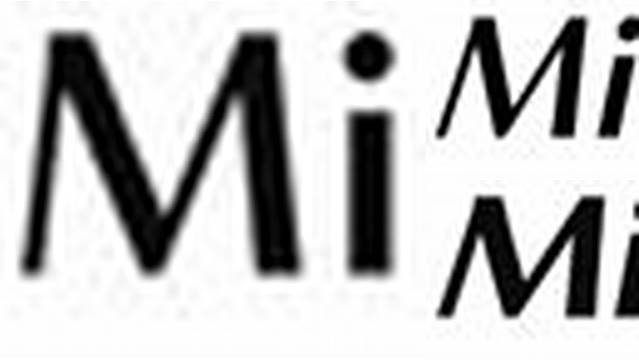
Minerva Modern Bold Font: Free Download Guide
Hey guys! Are you on the hunt for a font that screams modernity and boldness? Well, look no further! Today, we're diving deep into the world of the Minerva Modern Bold font. This font has become a favorite among designers and creatives for its sleek lines, strong presence, and overall versatility. In this article, we'll explore everything you need to know about Minerva Modern Bold, including where you can find it for free download, its key features, and how you can best utilize it in your projects. So, buckle up and let’s get started on this font-tastic journey! Minerva Modern Bold is not just another typeface; it's a statement. Its distinctive character makes it an excellent choice for various design applications, from branding and advertising to editorial design and web typography. The font's clean, geometric forms exude a sense of sophistication and confidence, making it perfect for projects that require a contemporary touch. Whether you're designing a logo, crafting a poster, or revamping your website, Minerva Modern Bold can add a touch of elegance and impact.
The Minerva Modern Bold font family is designed with precision and attention to detail, ensuring readability and visual appeal across different sizes and mediums. Its bold weight commands attention, making it ideal for headlines and titles. However, the font's versatility extends beyond just headings; it also works beautifully in shorter body text, providing a harmonious balance between boldness and clarity. One of the reasons Minerva Modern Bold is so popular is its ability to convey a sense of modernity without sacrificing legibility. Many modern fonts lean too heavily on abstract designs, which can make them difficult to read. Minerva Modern Bold strikes the perfect balance, offering a contemporary aesthetic while maintaining excellent readability. This makes it a practical choice for a wide range of projects, ensuring your message is not only stylish but also clear and accessible. Plus, its open-source availability means you can use it in both personal and commercial projects without worrying about licensing fees, making it an incredible resource for designers of all levels.
Moreover, the Minerva Modern Bold font boasts a comprehensive character set, including uppercase and lowercase letters, numerals, punctuation marks, and a variety of symbols. This extensive range allows for creative flexibility and ensures you have all the tools you need to bring your design vision to life. Whether you’re working on a multilingual project or need specific glyphs for a unique design element, Minerva Modern Bold has you covered. The font’s versatility is further enhanced by its compatibility with various design software and platforms. Whether you’re using Adobe Creative Suite, Sketch, Figma, or any other design tool, Minerva Modern Bold will integrate seamlessly into your workflow. This ease of use makes it a go-to choice for designers who value efficiency and reliability. Its widespread support also means you can confidently use it across different projects and platforms, knowing that your typography will look consistent and professional. So, if you’re ready to elevate your designs with a font that combines boldness, modernity, and versatility, Minerva Modern Bold is an excellent choice.
What is Minerva Modern Bold Font?
So, what exactly is the Minerva Modern Bold font? Simply put, it’s a typeface that blends contemporary design with a strong, bold presence. Imagine a font that's both stylish and assertive – that’s Minerva Modern Bold in a nutshell. It belongs to the sans-serif family, which means it lacks the small decorative strokes (serifs) that you see in fonts like Times New Roman. This gives it a clean, minimalist look that’s perfect for modern designs. The boldness adds an extra layer of impact, making it stand out in any context. Think about using it for headlines, logos, or even to make a statement on social media graphics. The font’s distinct character makes it incredibly versatile, fitting well in both digital and print media. Minerva Modern Bold is designed to catch the eye and convey a sense of authority and sophistication.
The design of Minerva Modern Bold draws inspiration from geometric shapes and clean lines, resulting in a typeface that feels both modern and timeless. The absence of serifs contributes to its minimalist aesthetic, making it a popular choice for projects that aim for a sleek and uncluttered look. The bold weight of the font adds a visual punch, ensuring that your text commands attention. This makes it particularly effective for headlines, titles, and other prominent text elements where you want to make a strong impression. However, its well-balanced design also allows it to be used in shorter paragraphs of body text, providing a visually cohesive and impactful reading experience. The font's versatility stems from its ability to adapt to different design styles and contexts, making it a valuable asset in any designer’s toolkit. Whether you’re working on a corporate branding project, designing a website, or creating marketing materials, Minerva Modern Bold can help you achieve a professional and contemporary look.
One of the key reasons for Minerva Modern Bold’s popularity is its excellent readability. While some bold fonts can sacrifice clarity for visual impact, Minerva Modern Bold manages to strike a perfect balance. The letterforms are carefully crafted to ensure that each character is easily distinguishable, even at smaller sizes. This makes it a practical choice for a wide range of applications, from print design to digital interfaces. The font’s readability is further enhanced by its consistent spacing and kerning, which contribute to a smooth and harmonious reading experience. Whether your audience is viewing your design on a large screen or a small mobile device, they will be able to read your text comfortably and without strain. This focus on readability sets Minerva Modern Bold apart from many other bold fonts, making it a reliable and versatile choice for any project where clear communication is essential. So, if you're looking for a font that's both visually striking and easy to read, Minerva Modern Bold is definitely worth considering.
Key Features of Minerva Modern Bold
Let’s talk about the key features that make Minerva Modern Bold such a standout font. First and foremost, its bold weight is a major highlight. This gives it a strong, impactful presence that’s perfect for grabbing attention. Imagine using it for headlines – it instantly makes your text pop! But it’s not just about being bold; the font also boasts a modern, sans-serif design. This means clean lines and a minimalist aesthetic, giving it a contemporary feel that works well in a variety of projects. Another significant feature is its versatility. You can use it for everything from logos and branding to posters and website design. It’s truly a jack-of-all-trades in the font world! Plus, Minerva Modern Bold often comes with a comprehensive character set, including uppercase and lowercase letters, numbers, punctuation, and even some special symbols. This gives you a lot of creative flexibility.
Another crucial feature of the Minerva Modern Bold font is its excellent readability. While the font is bold and makes a statement, it doesn’t sacrifice clarity. The letterforms are designed with meticulous attention to detail, ensuring that each character is easily distinguishable. This readability makes Minerva Modern Bold suitable for both headlines and shorter paragraphs of body text. You can confidently use it in a variety of contexts without worrying about your text becoming difficult to read. The font’s clear and distinct letterforms contribute to a smooth and enjoyable reading experience, whether your audience is viewing your design on a screen or in print. This focus on readability sets Minerva Modern Bold apart from many other bold fonts that prioritize visual impact over clarity. Its ability to combine boldness with readability makes it a practical and versatile choice for any project where clear communication is essential. So, if you need a font that’s both eye-catching and easy to read, Minerva Modern Bold is an excellent option.
The Minerva Modern Bold font also stands out for its geometric precision. The letterforms are constructed using precise geometric shapes, giving the font a structured and balanced appearance. This geometric foundation contributes to its modern aesthetic and makes it visually appealing. The clean lines and sharp angles create a sense of sophistication and professionalism, making it a great choice for corporate branding and other high-end design projects. The precision in its design ensures that the font looks polished and refined in any context. Furthermore, Minerva Modern Bold often includes multiple weights and styles, depending on the specific version you download. This can give you even more flexibility in your designs, allowing you to create visual hierarchy and add subtle variations to your typography. Having access to different weights and styles means you can use Minerva Modern Bold for a wide range of design elements, from headlines and subheadings to body text and captions. This versatility makes it a valuable addition to any designer's font library. So, whether you're drawn to its bold presence, modern design, excellent readability, or geometric precision, Minerva Modern Bold offers a range of features that make it a standout choice for various design applications.
So, there you have it, guys! Everything you need to know about the Minerva Modern Bold font. From its striking features to where you can download it for free, we’ve covered it all. This font is a fantastic tool for any designer looking to add a touch of modern boldness to their projects. Whether you’re crafting headlines, designing logos, or sprucing up your website, Minerva Modern Bold can help you make a statement. Remember to download from reputable sources, check the licensing, and experiment with different pairings and design styles to get the most out of this versatile typeface. Happy designing! Minerva Modern Bold is more than just a font; it's a design asset that can elevate your work and help you communicate your message with clarity and impact. Its blend of modernity, boldness, and versatility makes it a valuable addition to any designer's toolkit. So, go ahead, give it a try, and see how it can transform your projects.